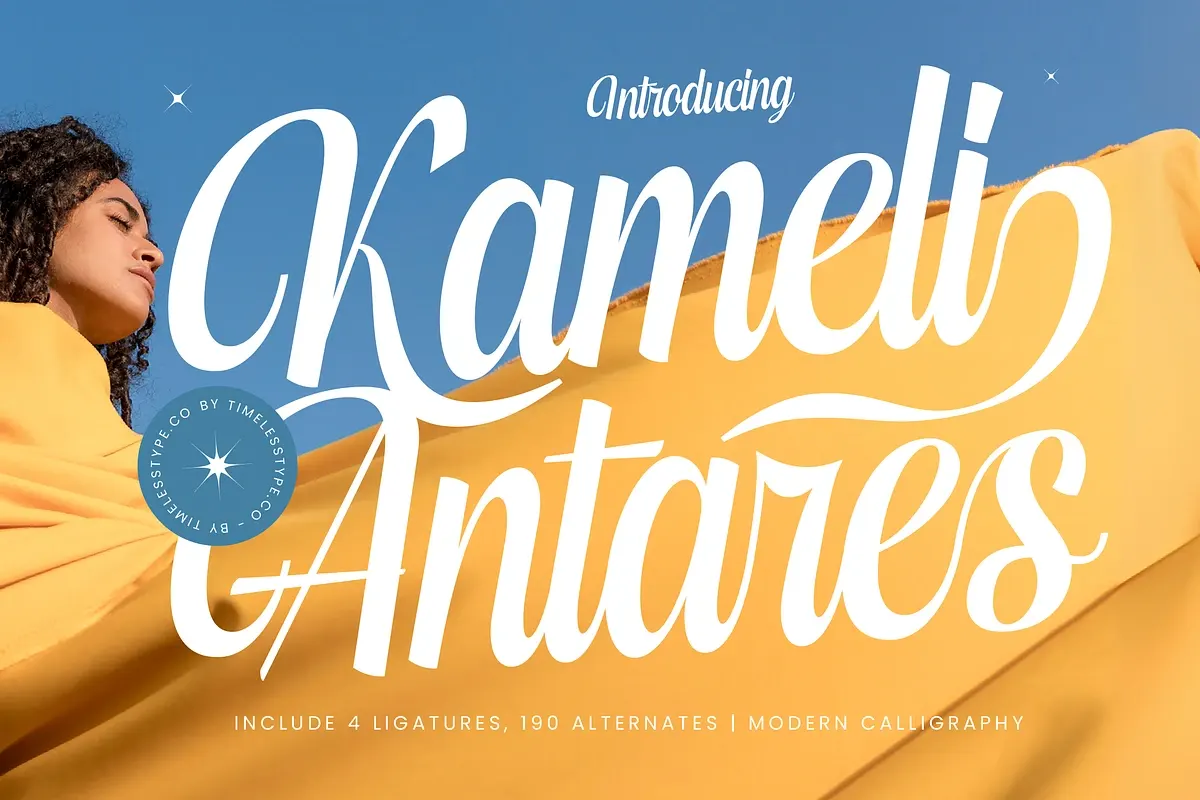
Kameli Antares Modern Calligraphy Font Free Download is a stylish and elegant script typeface designed with smooth, flowing strokes. With its modern calligraphy style, this font is perfect for creating sophisticated logos, invitations, branding, social media graphics, and wedding stationery. Kameli Antares offers a blend of traditional calligraphy with a contemporary touch, making it ideal for both formal and casual designs.
Its elegant, handcrafted look adds a personal and unique touch to any project, making it perfect for high-end designs that require a refined, artistic flair.